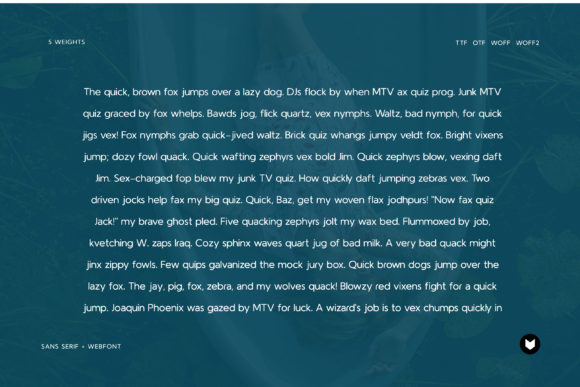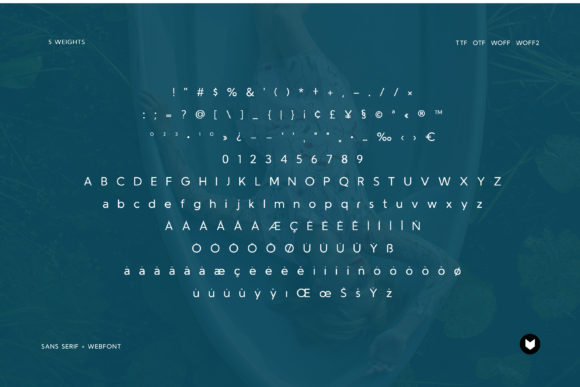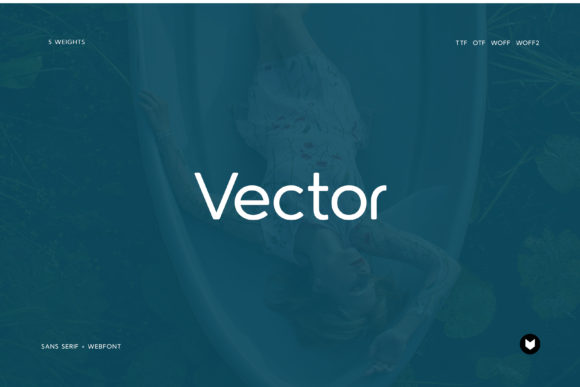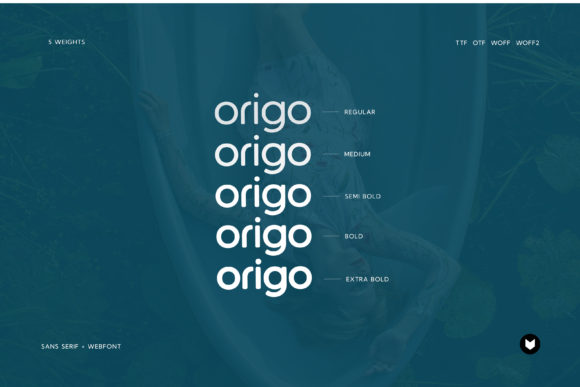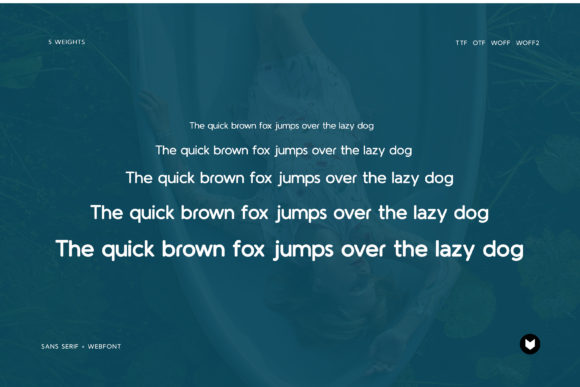
Introduction to Origo Pro Font
Remember that moment when you were brainstorming ideas for a new project and suddenly, the perfect font popped into your mind? It’s like the whole design starts to come together, and you can almost see the finished product. For designers, finding the right font can be a game-changer. And that’s exactly what the Origo Pro Font offers – a clean, modern sans serif font that’s perfect for giving your designs a professional touch.
Whether you’re working on a web design, business card, or any other creative project, the Origo Pro Font is an excellent choice. Its simple yet elegant design makes it an ideal design resource for anyone looking to create a high-quality, visually appealing project. Plus, with its transparent background, you can easily customize it to fit your design needs.
Key Features of Origo Pro Font
- High-quality design resource with a unique, modern aesthetic, ideal for creative projects.
- Comes with a transparent background, allowing for easy integration into various design applications.
- Includes a wide range of characters, including Latin, Cyrillic, and Greek alphabets, making it suitable for multilingual designs.
- Perfect for use in logos, branding materials, and other creative projects where a modern, sleek font is desired.
- Can be easily scaled and customized to fit various design needs, from small text to large headlines.
Honest Review: Origo Pro Font
As a designer, I’ve had the pleasure of working with numerous fonts, but Origo Pro Font has caught my attention for its unique characteristics. When I stumbled upon this font, I immediately knew it was worth exploring further.
- High-quality design: Origo Pro Font boasts a sleek and modern design, making it perfect for creative projects.
- Transparency: The font’s transparent background allows for seamless layering and customization.
- Flexibility: The font is versatile and suitable for various design applications, from corporate to creative projects.
- Limited font styles: Compared to other fonts, Origo Pro Font has a limited number of styles, which may not cater to all design needs.
- Not suitable for complex text: Due to its modern design, the font may not be the best choice for complex text or formal documents.
Overall, I’m impressed with Origo Pro Font’s design and versatility. It’s an excellent addition to any designer’s toolkit, and I’m excited to incorporate it into my next creative project.
The Origo Pro Font is a high-quality design resource ideal for various creative projects. With its unique style and versatility, it’s a valuable addition to any design library.
Tips for Getting the Most Out of Origo Pro Font
To maximize the effectiveness of Origo Pro Font, experiment with different font sizes, colors, and combinations to create a unique and engaging design. Consider using it in conjunction with other design elements to enhance visual appeal.
The Origo Pro Font is suitable for various creative projects, including business presentations, marketing materials, and digital art. Its versatility and high-quality design make it an excellent choice for designers seeking a distinctive and professional look.
Alternatives to Origo Pro Font
Montserrat is a popular sans-serif font that is perfect for modern design projects. It has a high quality and clean design, making it ideal for creative projects that require a professional look. Montserrat is available for free download and can be used with a transparent background. When to use: Use Montserrat for headings and titles in modern designs, especially those that require a clean and minimalist look. Compared to Origo Pro Font, Montserrat has a more geometric and modern feel, making it a great alternative for designers who want a more contemporary look.
Open Sans is a highly legible sans-serif font that is widely used in design projects. It has a neutral and clean design, making it perfect for creative projects that require a high quality and professional look. Open Sans is available for free download and can be used with a transparent background. When to use: Use Open Sans for body text and headings in modern designs, especially those that require a clean and minimalist look. Compared to Origo Pro Font, Open Sans has a more neutral and legible design, making it a great alternative for designers who want a font that is easy to read.